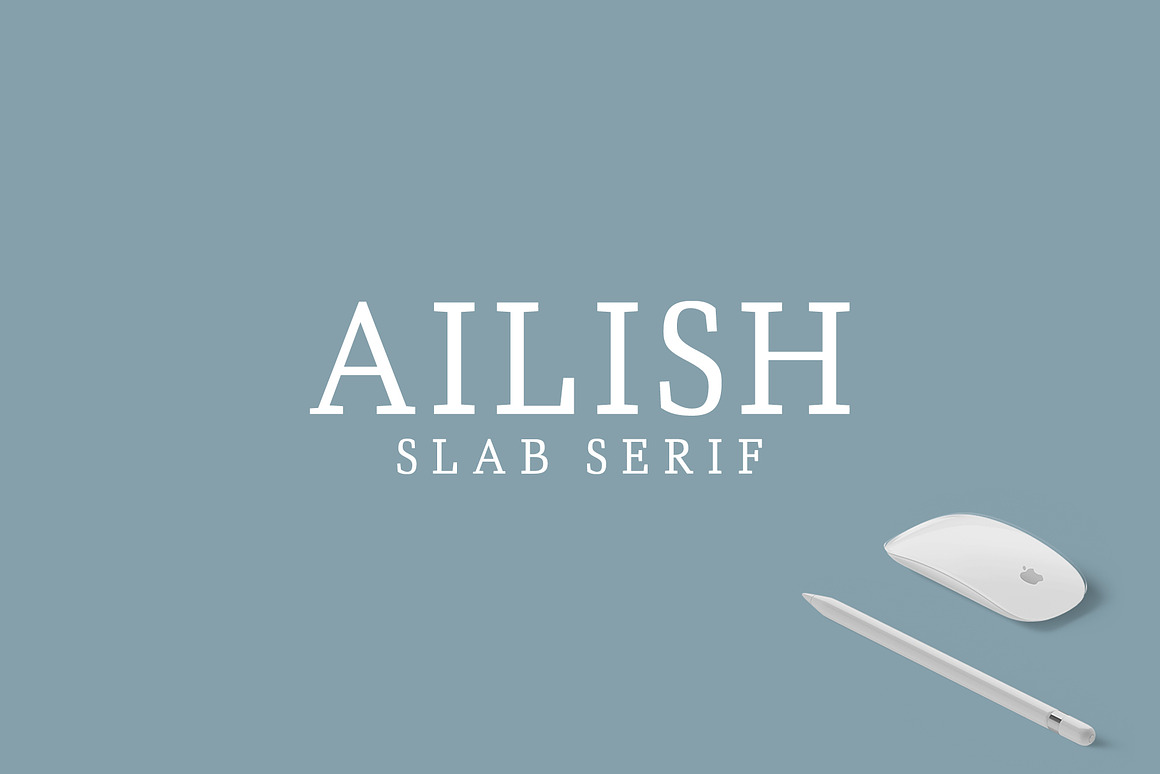
Ailish Slab Serif Font Pack
Ailish Slab Serif Font Pack is perfect for bold newspaper headlines, magazine mastheads, vintage poster designs, industrial branding, architectural signage, craft brewery logos, retro advertising campaigns, and impactful editorial layouts.
Ailish Slab Serif Font Pack is exciting because it combines robust slab serif strength with refined craftsmanship, featuring bold, commanding letterforms that demand attention while maintaining excellent legibility. Its powerful character creates striking visual hierarchy and authentic industrial appeal.
Ailish Slab Serif Font Pack family includes light, regular, bold, and black weights with matching italic styles, providing designers with eight comprehensive font variations for creating dynamic and authoritative typographic solutions.
Ailish Slab Serif Font Pack Free Download delivers premium typography that bridges historical industrial design with contemporary functionality. This exceptional typeface collection showcases masterful balance between mechanical precision and organic readability, making it particularly effective for brands requiring strong visual presence and memorable character. The font's architectural strength makes it ideal for construction companies, manufacturing firms, artisanal brands, and creative agencies seeking distinctive visual identity solutions.
Editorial teams consistently choose Ailish Slab Serif Font Pack for its outstanding performance in headline applications and display typography. The font's sturdy construction and pronounced slab serifs create powerful visual impact that cuts through information clutter while ensuring optimal readability across various media formats. Its versatile weight range accommodates diverse communication needs from subtle accent text to commanding display applications.
The Ailish Slab Serif Font Pack download includes comprehensive character sets with industrial symbols, extensive punctuation, and international language support for global project compatibility. This thorough coverage ensures professional results in complex layouts requiring sophisticated typographic hierarchy. The font performs exceptionally in both high-resolution digital displays and traditional print applications where texture and character detail contribute significantly to overall brand perception.
Design professionals appreciate Ailish Slab Serif Font Pack's versatility in creating memorable brand experiences that stand out in competitive markets. Its distinctive personality helps establish authentic visual voice while maintaining the reliability and professionalism required for serious business communications, making it an invaluable asset for organizations seeking to project strength, craftsmanship, and industrial heritage.